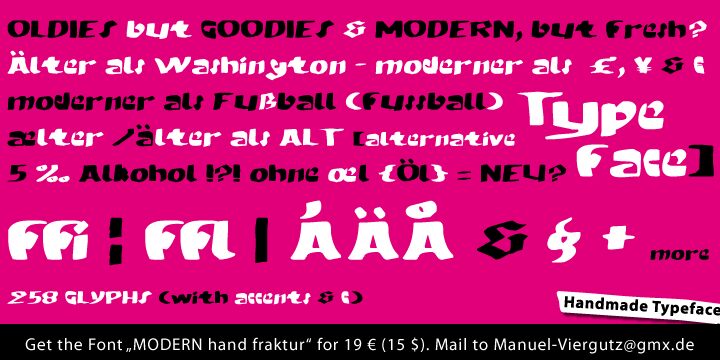
MODERN hand fraktur
Headline Font / Display Font / Handwritten Script Font "modern Hand Fraktur"
with 1 stlye (regular) & 258 glyphs incl. accents &
Manuel Viergutz